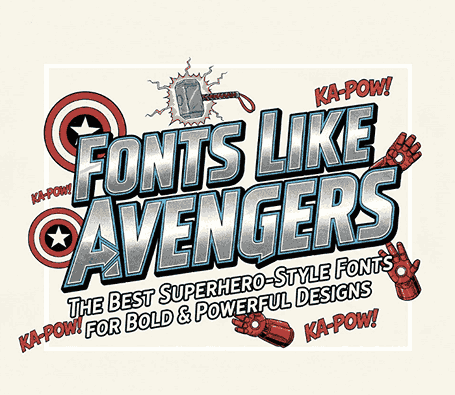
Fonts Like Marvel Avengers
1. Introduction Fonts Like Marvel Avengers
Superhero films have shaped modern pop culture more than almost any genre. Among them, Fonts Like Marvel Avengers stands at the top—not only for its cinematic universe, but also for its iconic typography. The bold, metallic, and heroic style of Marvel titles has inspired thousands of designers searching for “Fonts Like Marvel Avengers” to elevate their creative projects.
2. What Makes Fonts Like Marvel Avengers So Iconic?
Fonts Like Marvel Avengers
The Marvel Avengers font style is instantly recognizable due to several design features:
• Strong geometric structure
• Bold, heroic presence
• Slight futuristic touch
• High contrast and sharp edges
• Dynamic movement and power
These visual characteristics create an immediate association with strength, courage, and action—precisely the emotions superhero franchises rely on.
3. Key Characteristics of Superhero-Style Fonts Like Marvel Avengers
When looking for fonts similar to Marvel Avengers, pay attention to these traits:
✔ Bold Weight
Superhero fonts are often thick and heavy to symbolize power.
✔ Geometric or Block-Fonts Like Marvel Avengers Letterforms
This gives a futuristic and modern sci-fi aesthetic.
✔ Sharp Corners & Angles
Sharp edges create a dramatic and intense effect.
✔ Versatility for Logos & Headlines
These fonts are primarily display fonts, ideal for short impactful text.
✔ Strong Visual Identity
They must instantly stand out, even from far away.
4. Best Fonts Like Marvel Avengers (With Mockups)
4.1 Iron Master Font (Modern Heroic Display Style)
Iron Master delivers a powerful, futuristic look with sharp edges and strong geometric shapes—an ideal choice for superhero movie titles, esports branding, and bold posters.
Why It Works for Fonts Like Marvel Avengers Designs:
• Wide all-caps structure
• Powerful block shapes
• Perfect for cinematic themes
• Strong metallic vibe when styled with gradients
Use it for:
✓ Movie posters
✓ Game titles
✓ Social media headers
✓ YouTube thumbnails
4.2 Crush Power Font (Energetic Comic Hero Font)
If you want a more comic-inspired superhero vibe, Crush Power is the perfect choice. It brings an energetic, dynamic look perfect for action graphics.
Why It Works:
• Thick, bold display style
• Impactful letterforms
• Great for children’s hero themes and comic books
Use it for:
✓ Comic covers
✓ Kids’ superhero branding
✓ Event posters
✓ Dynamic effects text
4.3 Captain Jerry Font (Fun, Adventure, & Heroic Typography)
Captain Jerry is a bold and playful comic font with heroic flair. It captures the adventurous tone of animated or classic superhero designs.
Why It Works:
• Cartoonish hero style
• Strong outlines
• Friendly yet impactful
Use it for:
✓ Superhero merchandise
✓ Character branding
✓ School events
✓ Comic-style marketing
4.4 Simple Character Font (Clean Comic Superhero Display Font)
This font offers a clean, modern comic style perfect for designs that need readability and impact at the same time.
Why It Works:
• Clean, easy-to-read shape
• Comic superhero aesthetic
• Strong display presence
Use it for:
✓ Title designs
✓ App/game UI
✓ Instagram posters
✓ Kids and family-friendly hero themes
Fonts Like Marvel Avengers
5. How to Choose the Right Fonts Like Marvel Avengers
Here are some tips:
✔ Identify the Tone
• Serious / cinematic → Iron Master
• Energetic / action-packed → Crush Power
• Fun / comic-style → Captain Jerry, Simple Character
✔ Consider the Audience
Kids → Fun comic fonts
Teens/Adults → Modern or cinematic
✔ Match Font to Project
Brand logo? → Strong geometric fonts
Merch or posters? → Bold comic fonts
✔ Test Legibility
These fonts work best for titles, not long paragraphs.
✔ Pair with Minimal Body Fonts
Use simple sans-serif fonts to balance your design.
8. Final Thoughts Fonts Like Marvel Avengers
Finding Fonts Like Marvel Avengers is easier than ever, especially with high-quality options from EdricStudio. Whether you’re designing movie posters, comic branding, or superhero merch, the recommended fonts above deliver the strong, powerful, and dynamic style associated with the Marvel cinematic universe.
These fonts give your designs instant impact while keeping them professional and visually appealing.